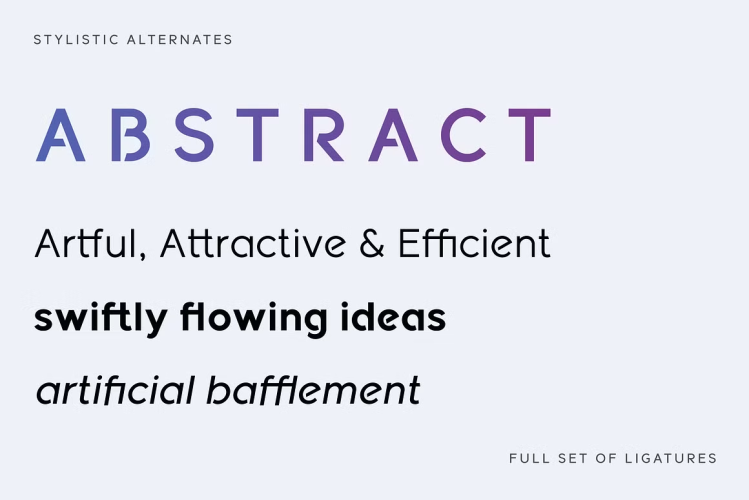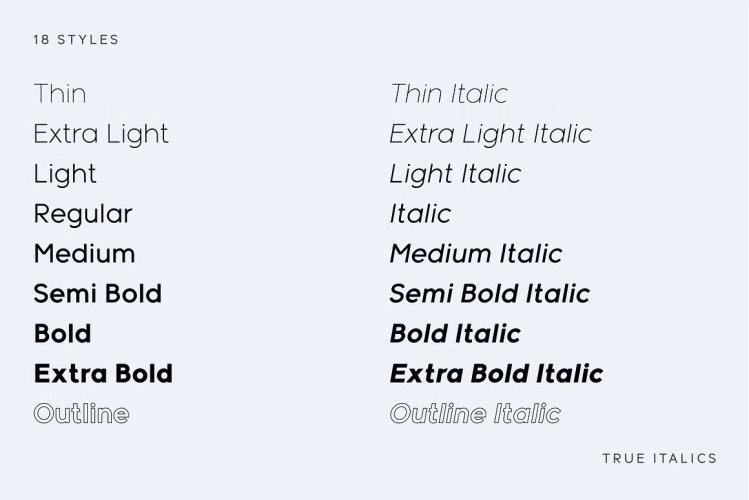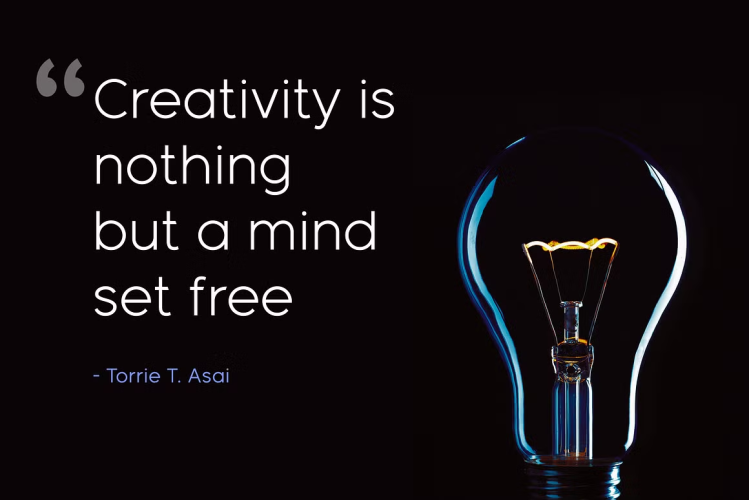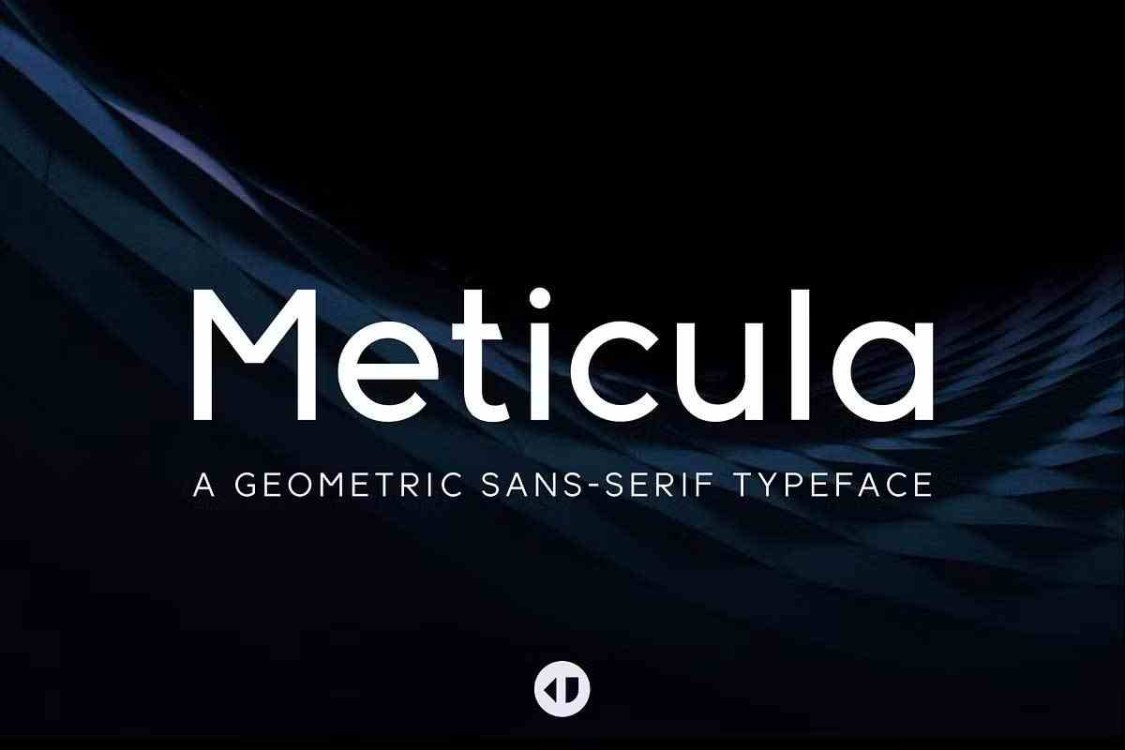
Meticula Font
Meticula is a sans-serif font family which provides 18 font sets. It meticulously supported complex geometric principles while inheriting the clean lines and versatility…
Meticula is a sans-serif font family which provides 18 font sets. It meticulously supported complex geometric principles while inheriting the clean lines and versatility of the modern sans-serif typefaces. This family series of fonts is carefully designed so that the sizes and intervals of all the characters from all the styles remain the same to implement a balanced, harmonious appearance for all the weights and styles.
Through its clean and versatile design in which there is quite a variety of font styles, Meticula is well suited for typography and graphic design works of art. Whether it’s simple logos, appealing headlines, or body text that’s put together nicely, Meticula offers the range and the finesse you need to lift your projects to a new level.
Meticula, from the clear, straight lines of the regular weight to the impact of the bold variants, going anytime needed, provides the designers with various tools that may be helpful functionally and aesthetically. The sans serif style makes it an excellent option for transmitting messages clearly and definitively or adding a touch of contemporary refinery to a graphic design.
Whether used alone or in combination, the collection within the Meticula family allows professional designers to have the confidence to experiment and unleash their creativity at ease; hence, it is a valuable tool for any designer aspiring for success in this field. Meticula, which creates things with extreme care and a nostalgic look for the digital era, exemplifies how meaningful design lasts.
Where Meticula Font works best
Meticula Font stays legible at small sizes, which makes it a strong choice for navigation, buttons and dashboards in web design and app interfaces.
Clean sans serifs like Meticula Font are the default language of SaaS, fintech and product branding.